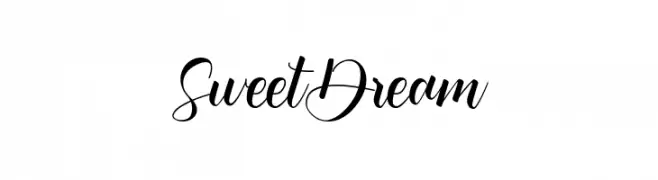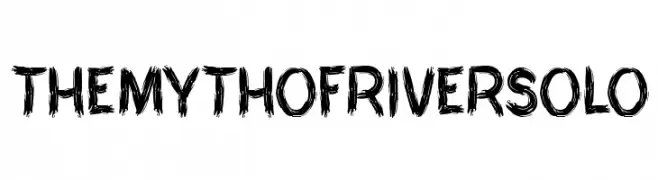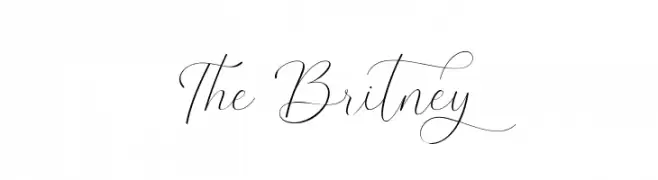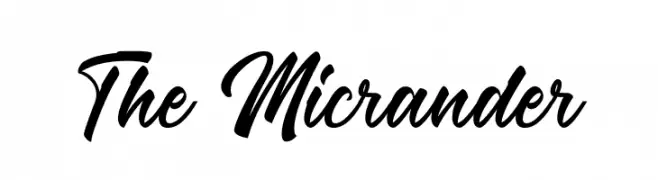
A flowing, cursive font with elegant loops and smooth transitions.
A playful and elegant script font with a modern, handwritten style.
A modern, elegant script font with flowing, cursive strokes.
A playful and elegant script font with fluid, cursive strokes.
A playful and whimsical script font with a hand-drawn, cursive style.
A bold serif font with dramatic contrast and elegant style.
An elegant script font with flowing, interconnected letters and intricate flourishes.
A flowing, cursive font with elegant, interconnected characters.
A bold, cursive script font with elegant, flowing lines.
A bold, brush-stroke font with an artistic and expressive style.